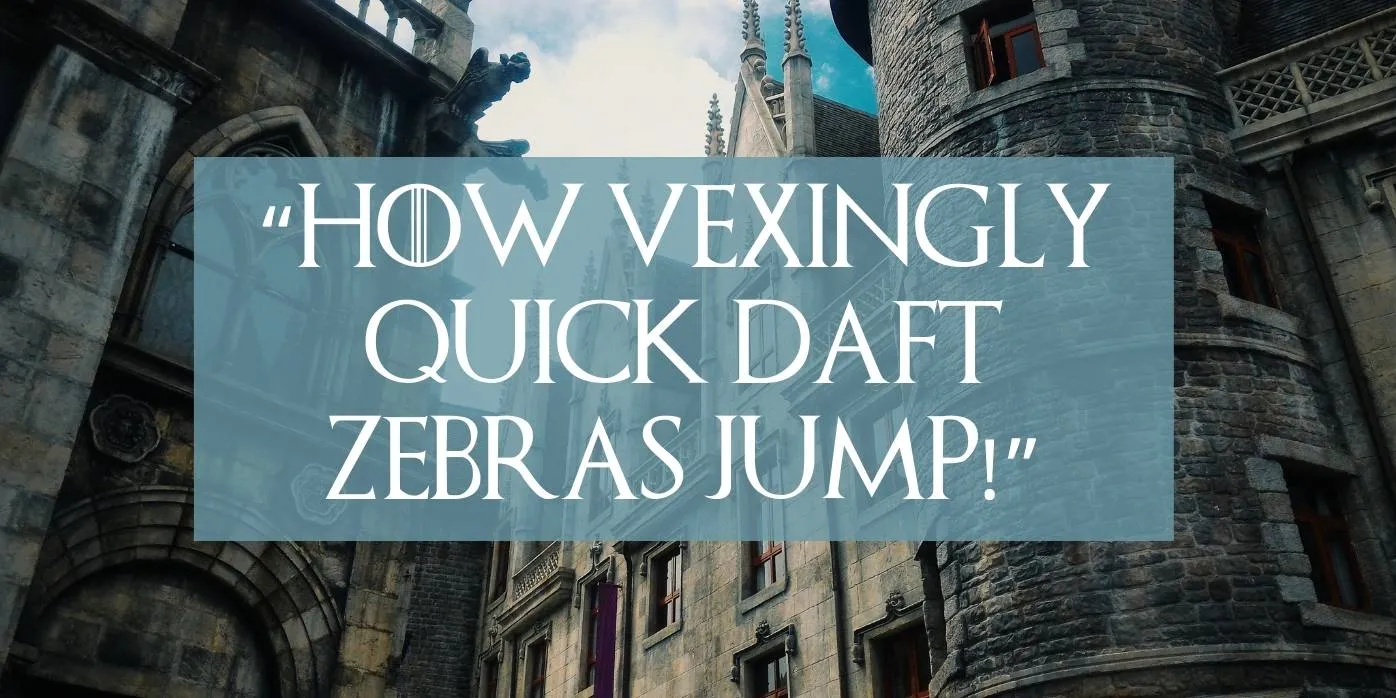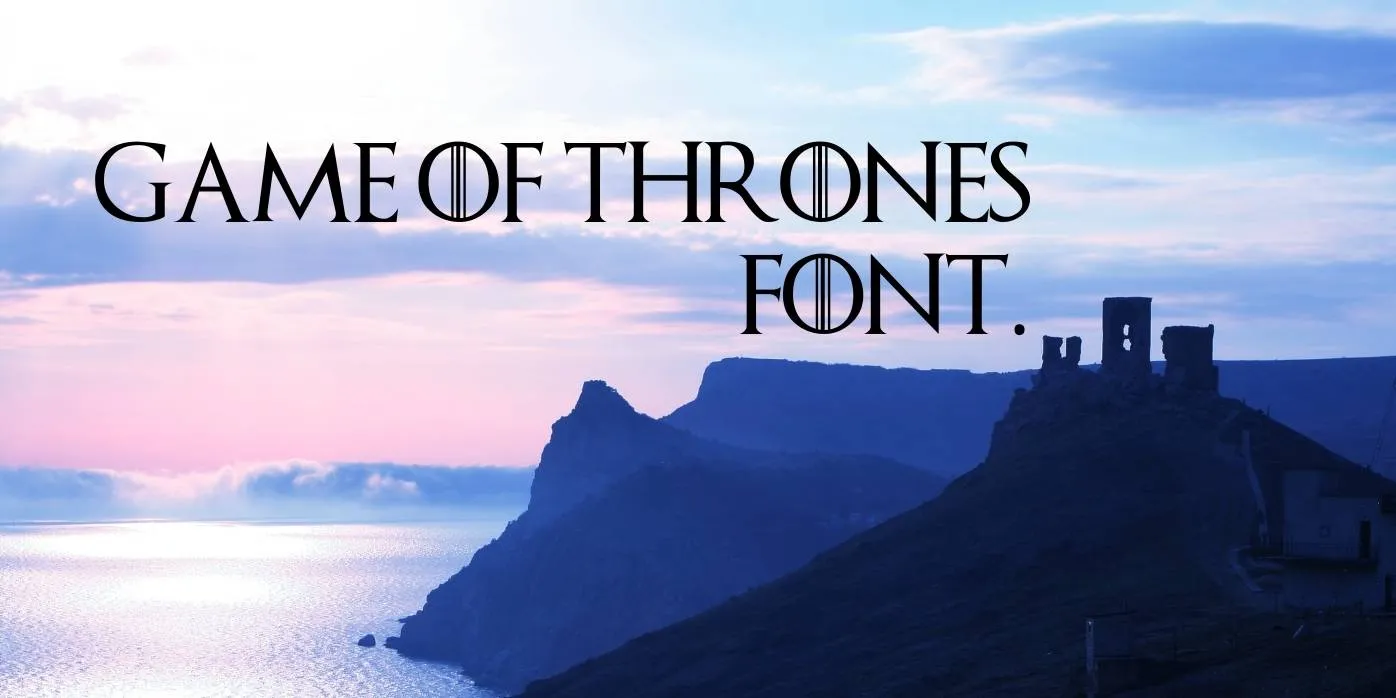
Game of Thrones Font
We are presenting the most famous and cozy typeface named Game of Thrones Font. This amazing font family was designed by a very intelligent and elegant developer named Charlie Samways. This cute font belongs to the Serif typeface. Game of Thrones is a very popular and fantastic TV series.
This font is especially best for creating logos of various types. In the year 2011, this tremendous series was broadcast for the first time. This stylish typeface contains doo much special and amazing characters. The most common and awesome characters are upercase, lowercase, symbol, numerals, and many more.
This astonishing font is a Google font. Sketchy Font is similar to this marvelous font family and works in the same manners and way. This attractive font family is available in OTF and TTF file formats and makes it useful for various designing fields. This classy typeface gives the facility of an online tool generator for making various types of designs.